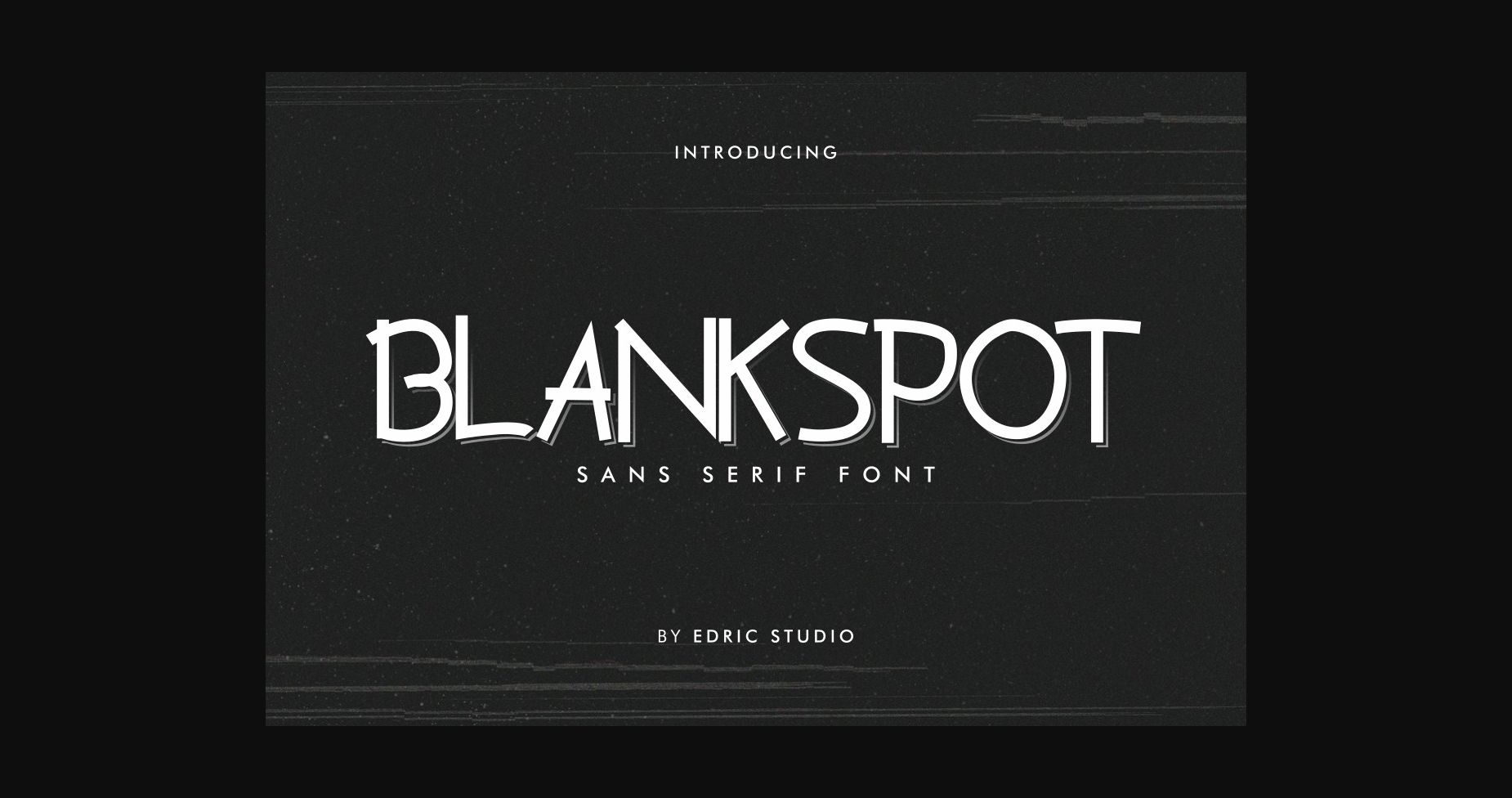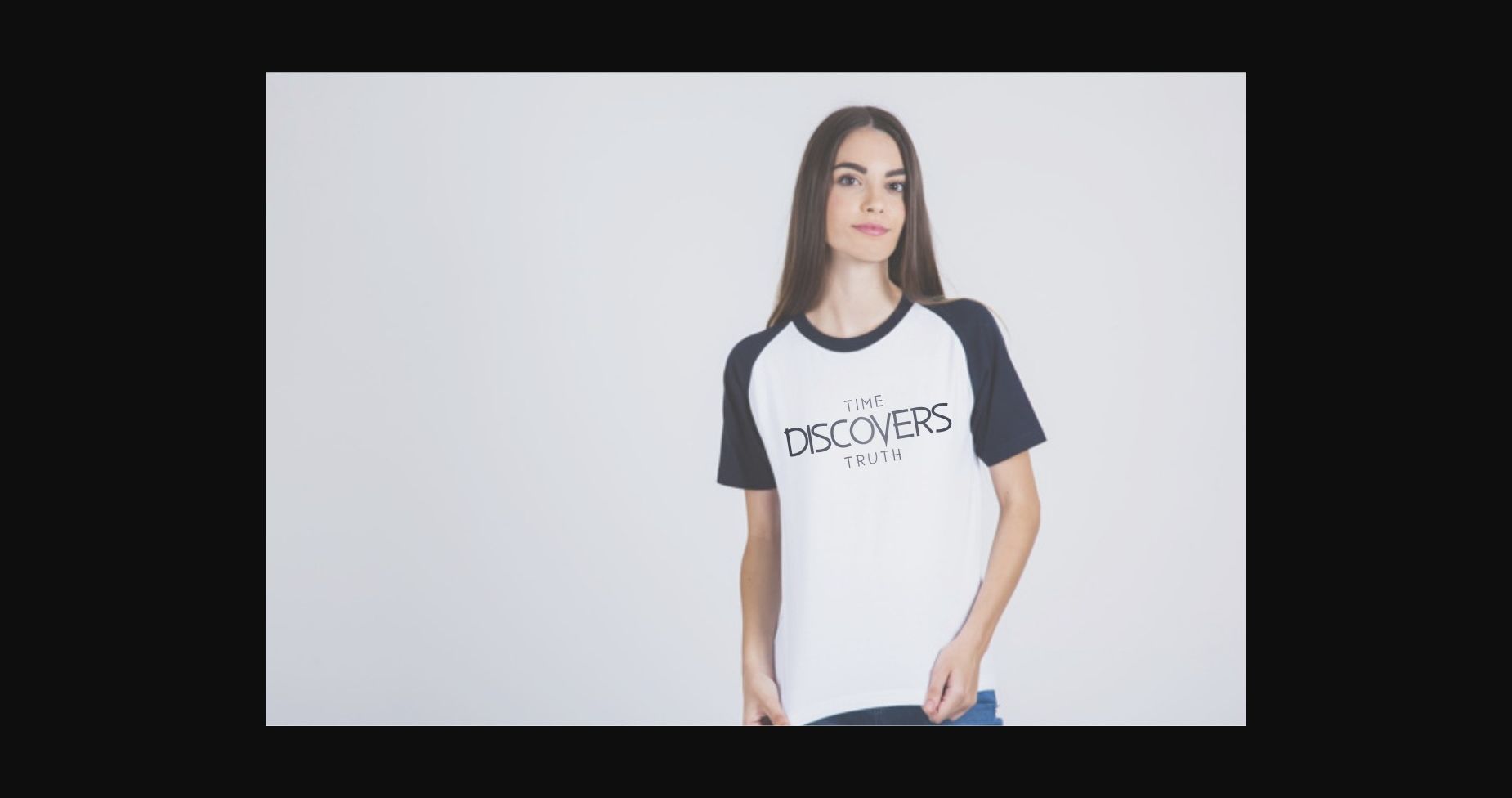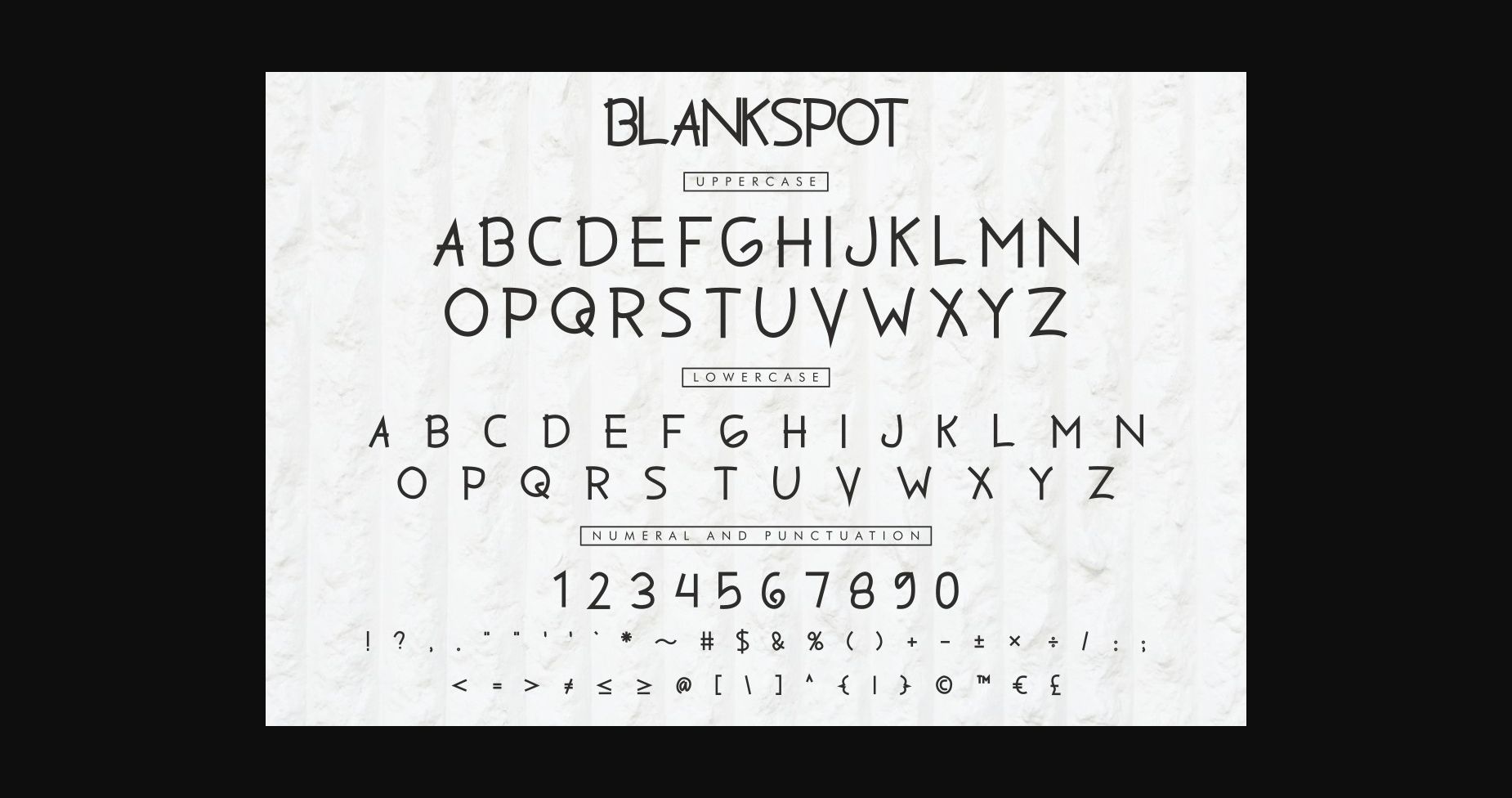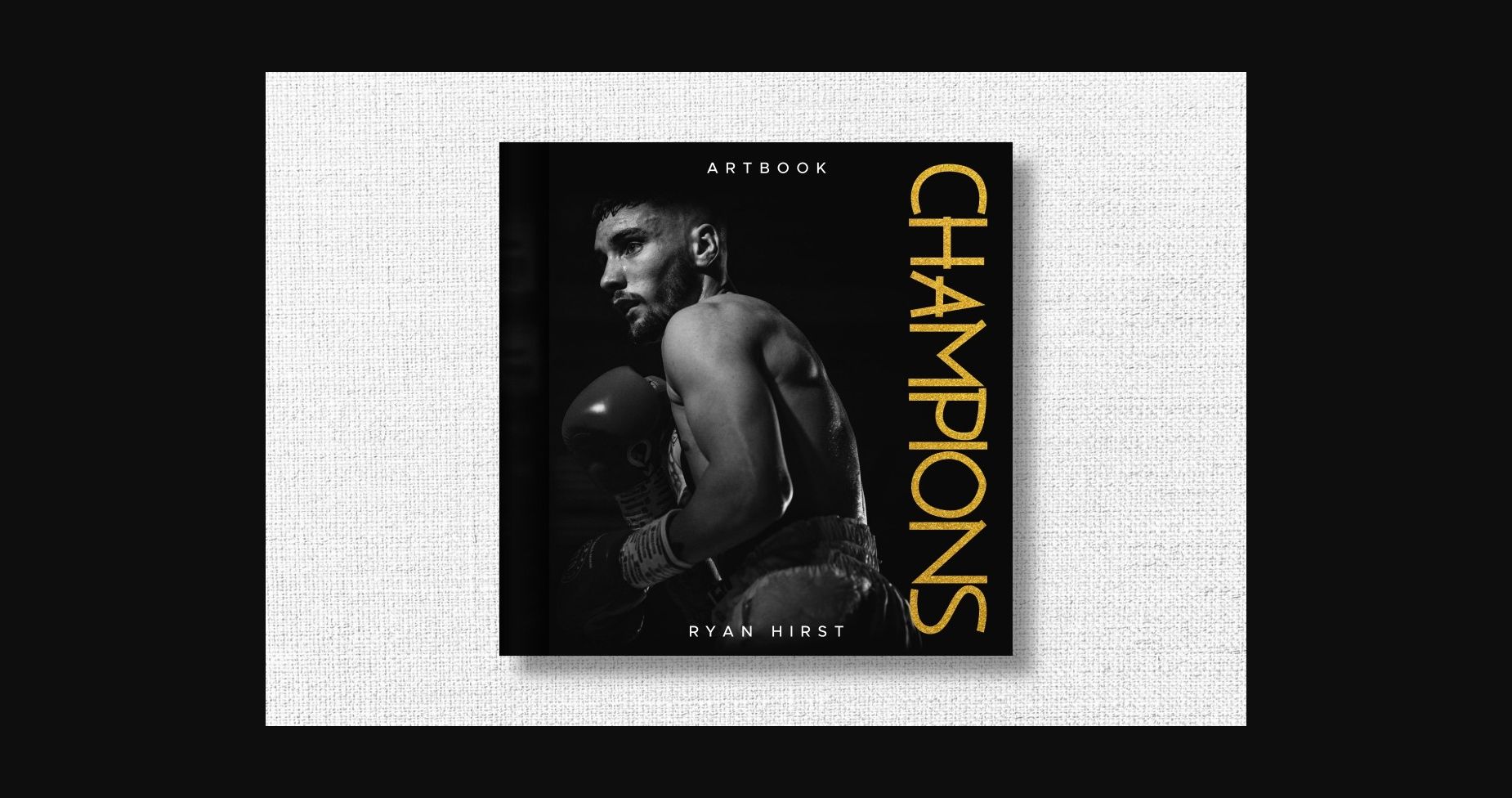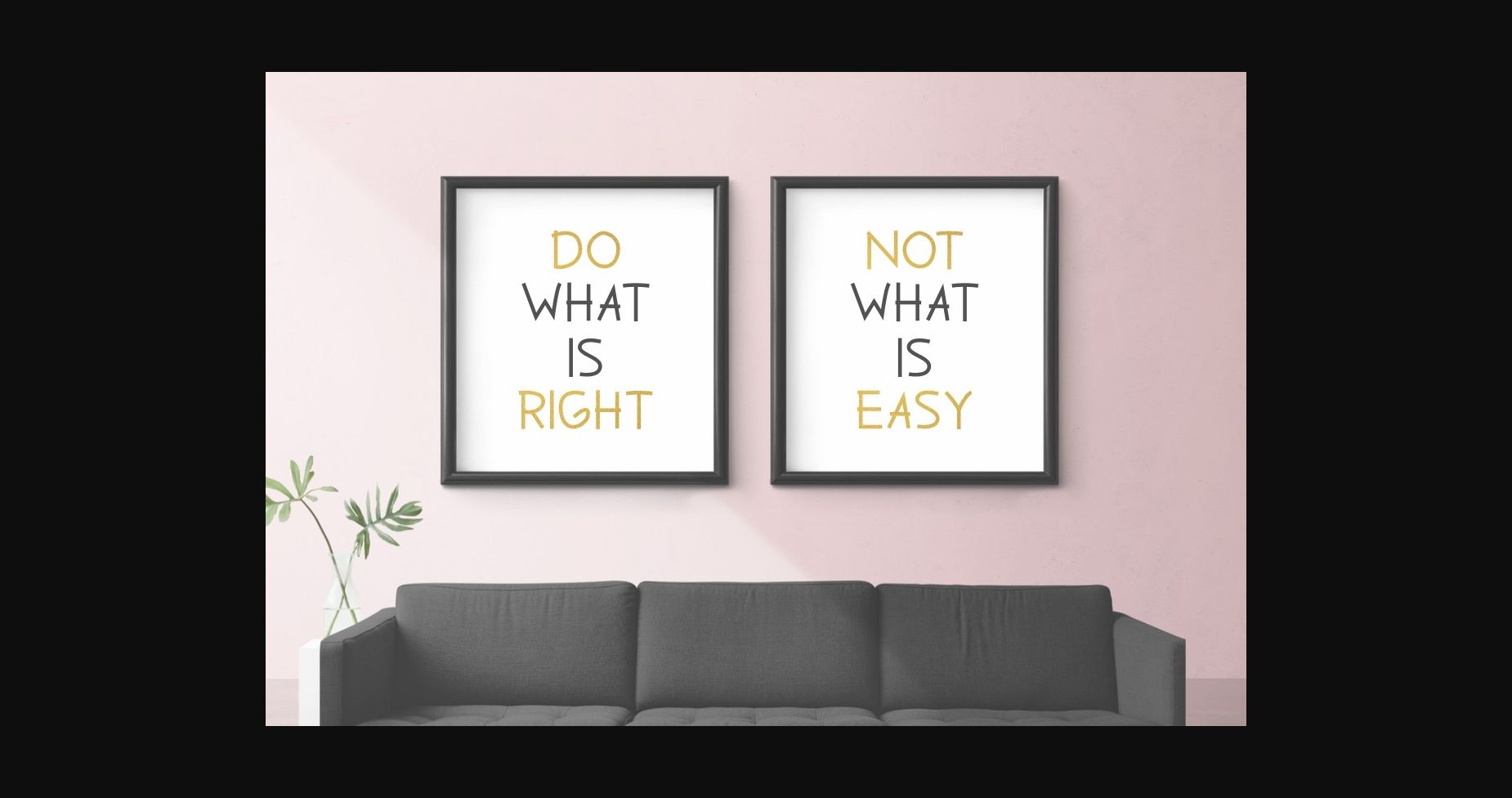
Blankspot is a clean and casual sans serif font. It can easily be matched to an incredibly large set of projects, so add it to your creative ideas and notice how it makes them stand out!